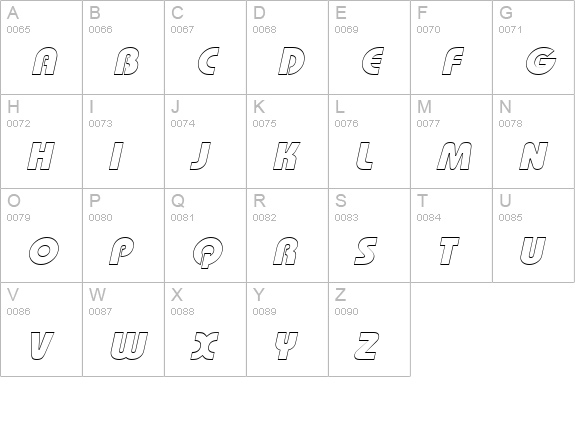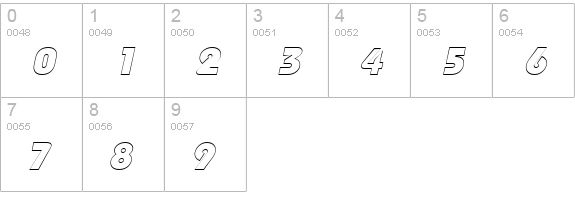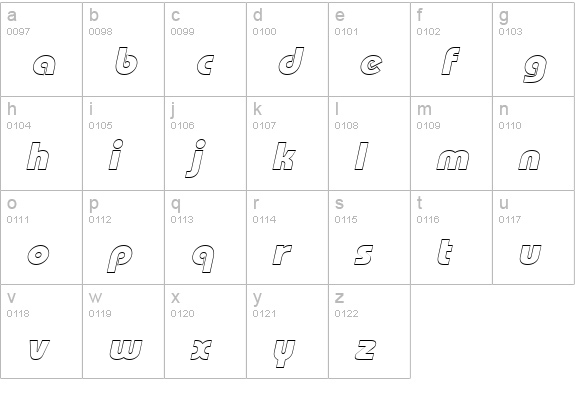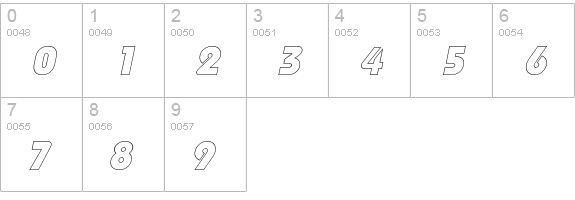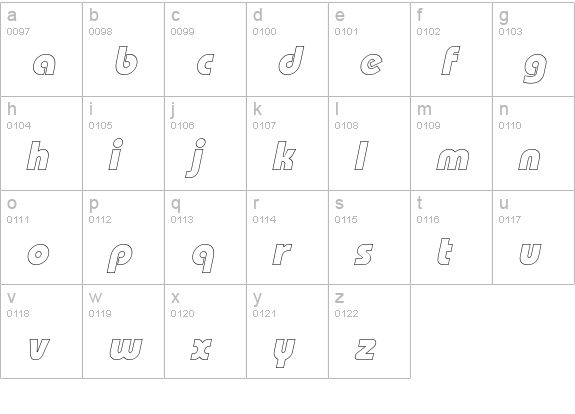
BordeauxBlackOutline Italic Font Details
BordeauxBlackOutline Italic is a distinctive, italic variant in the BordeauxBlackOutline typeface family \xE2\x80\x94 well suited to design and typography projects.
BordeauxBlackOutline Italic font is a striking and elegant typeface that exudes sophistication and modernity. Its sleek and bold design with a touch of edgy outline creates a unique visual impact that is perfect for adding a touch of luxury to any design project. The slanted italic style adds a dynamic flair to the text, making it stand out and draw attention. This font is not only visually appealing but also versatile, suitable for a wide range of design applications including branding, packaging, headlines, and more. Whether you are looking to create a sleek and modern look or add a touch of drama to your designs, BordeauxBlackOutline Italic font is sure to make a statement. Best of all, BordeauxBlackOutline Italic font is available for free download at FontsMarket.com, making it accessible to all designers and creatives who are looking to elevate their projects with a touch of elegance and style. Download this stunning font today and take your designs to the next level!